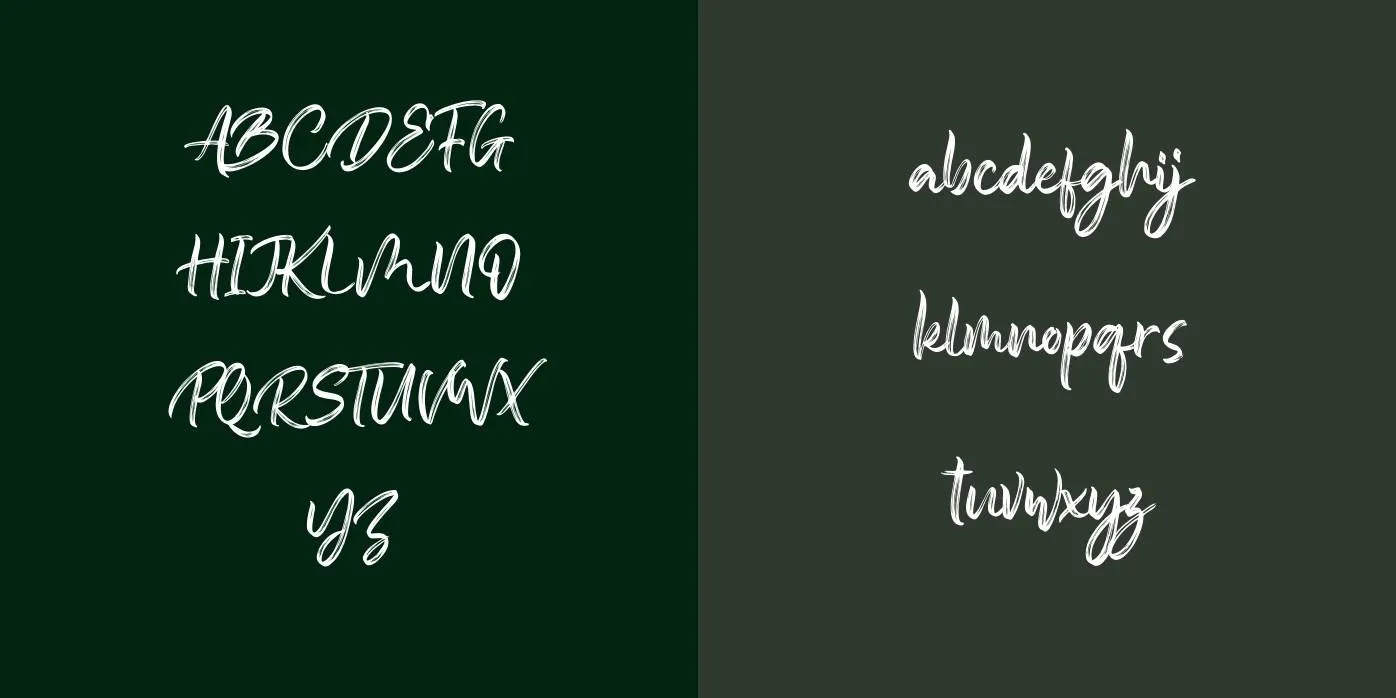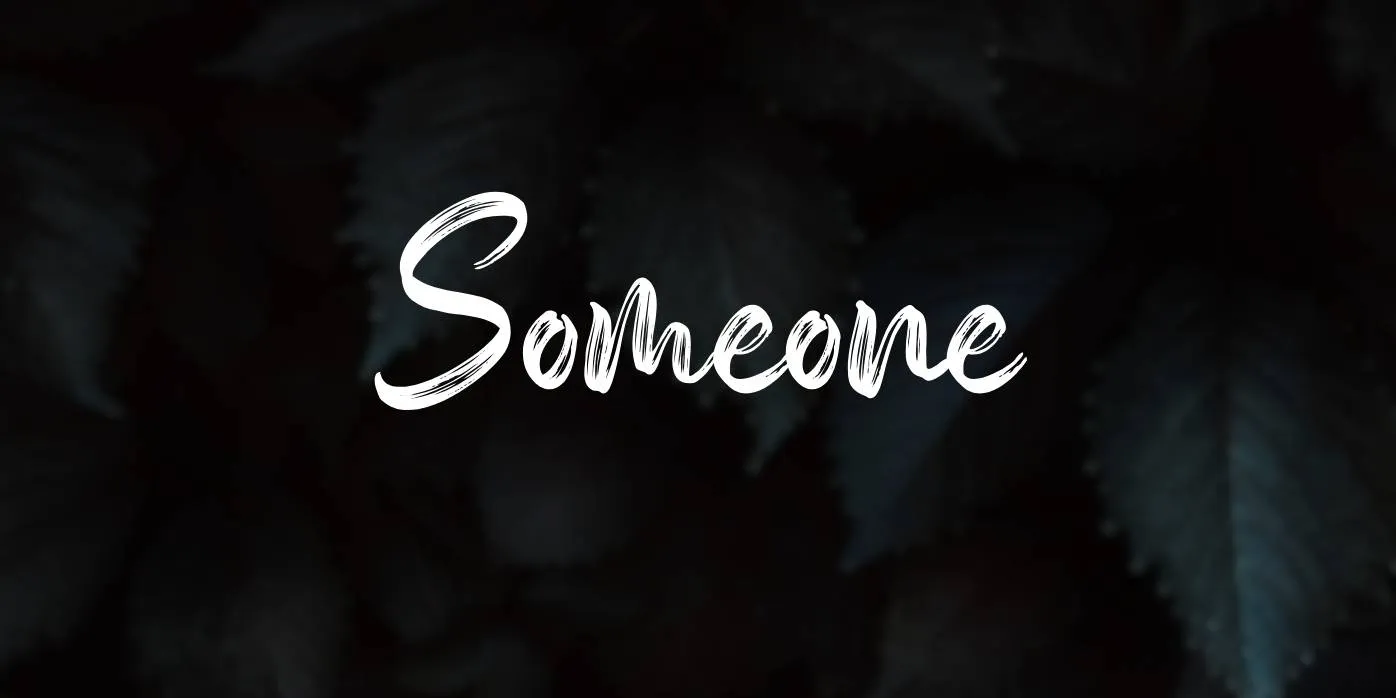
Someone Font
Almarkhatype designed Someone Font. This is a Script texture. The characters of this typeface have both properties stylish and bold which increases its readability. The howling wolf font can be paired with this texture.
As it gives a stylish look as well as bold characters. An online generator tool is also helpful to generate this texture. You can easily change simple text into stylish ones with different sizes, and shapes. The characters of this typeface are stylish and readable.
This texture has only one style. The style of this family is known as regular. Its characters include lowercase letters, capital letters, numbers, special characters, punctuation, and many international letters.